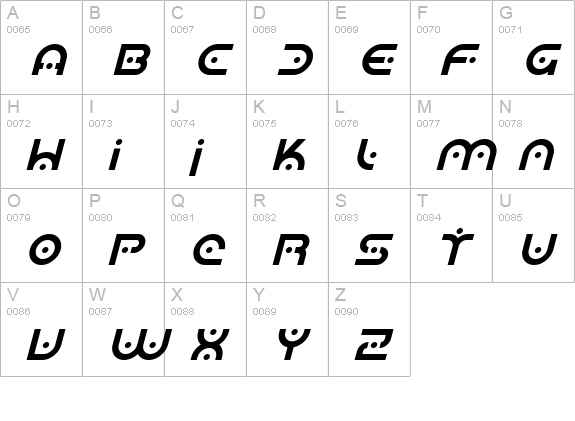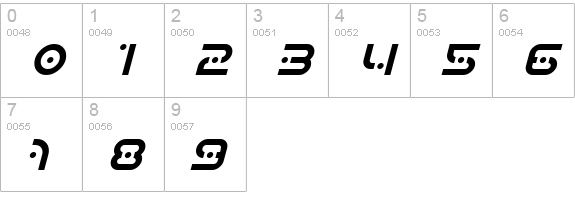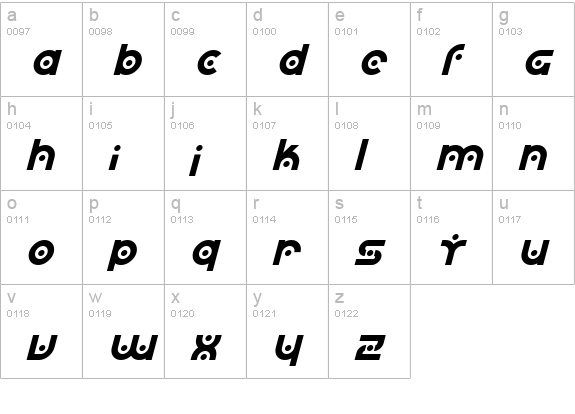
SF Planetary Orbiter Italic Font Details
SF Planetary Orbiter Italic is a distinctive, italic variant in the SF typeface family \xE2\x80\x94 well suited to design and typography projects.
Introducing SF Planetary Orbiter Italic, a mesmerizing and futuristic font that transports you to the outer realms of the universe. This unique typeface combines sleek lines with an otherworldly aesthetic, capturing the essence of deep space exploration and interstellar adventures. SF Planetary Orbiter Italic is a bold and striking font that commands attention with its dynamic letterforms. Its slanted italic style adds a sense of motion and energy, evoking the thrilling sensation of gliding through the cosmos. Whether used for headline text or body copy, this font will effortlessly elevate any design project to new heights. With its meticulously crafted glyphs and meticulous attention to detail, SF Planetary Orbiter Italic is a typeface that exudes professionalism and sophistication. Its versatility allows it to be used across a wide range of applications, including sci-fi book covers, space-themed websites, futuristic posters, and more. But what sets SF Planetary Orbiter Italic apart is its accessibility. This font is freely available to download at FontsMarket.com, making it a valuable asset for designers, artists, and enthusiasts alike. Whether you're a seasoned professional or a passionate hobbyist, SF Planetary Orbiter Italic offers the creative freedom to bring your visions to life. Embrace the celestial allure of SF Planetary Orbiter Italic and embark on a typographic journey like no other. Let this font propel your designs into the cosmos, capturing the imagination and leaving a lasting impression on all who behold it. Download SF Planetary Orbiter Italic now at FontsMarket.com and unlock the limitless possibilities of this extraordinary typeface.